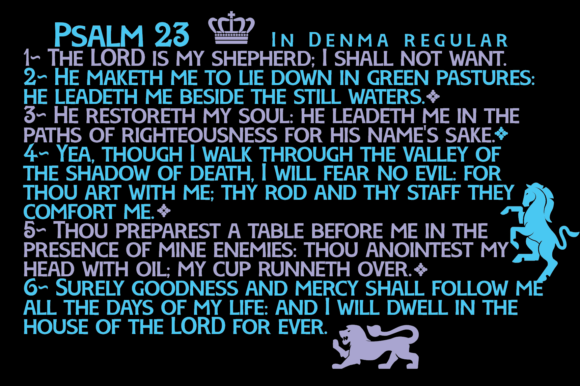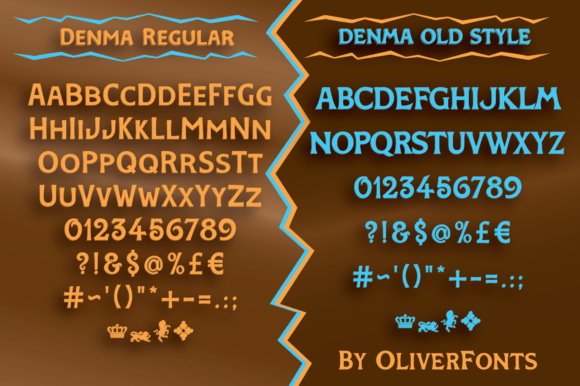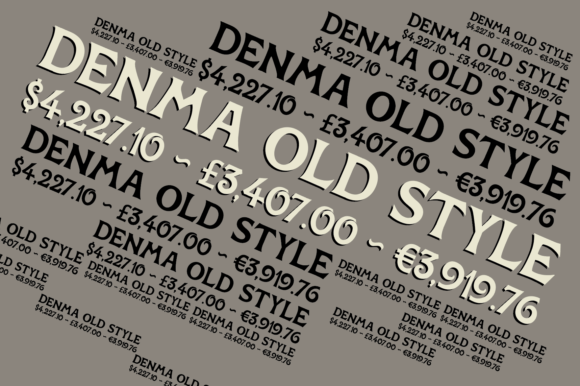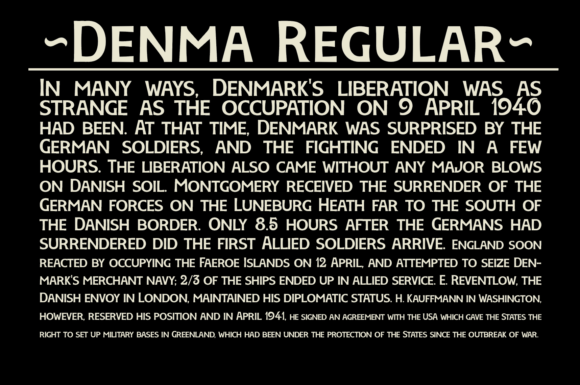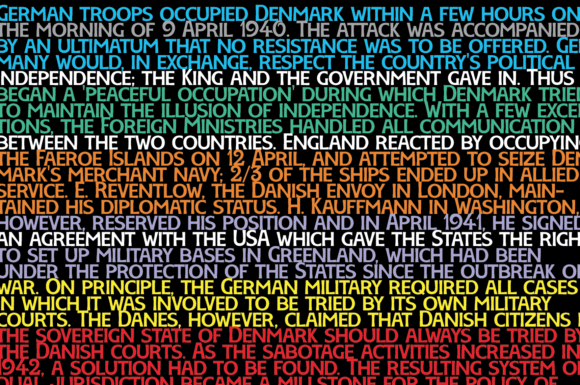
Introduction to Denma Font
As a designer, there’s nothing quite like that moment when an idea finally comes together, and your creative vision takes shape. For many of us, it’s the culmination of hours, days, or even weeks of brainstorming, sketching, and tweaking. But have you ever felt like something was missing – that your project just needed a little extra oomph to take it from good to great? That’s where the Denma Font comes in.
This beautiful, high-quality font is more than just a design resource – it’s a key to unlocking the creative potential of your next project. With its unique blend of elegance and sophistication, the Denma Font is the perfect choice for anyone looking to add a touch of class to their work. And the best part? It’s available for free download, making it a valuable addition to any designer’s toolkit.
Key Features of Denma Font
- Unique, hand-drawn design style that adds a personal touch to any project
- Can be easily scaled and customized to fit various design needs
Honest Review: Denma Font
I recently stumbled upon the Denma Font, and I must say it’s a hidden gem in the design resource world. With its high-quality typography, this font has the potential to elevate any creative project.
- Transparent background: This feature allows designers to easily place the font on any background, giving it a seamless look.
- Clean and modern design: The Denma Font’s clean lines and modern aesthetic make it perfect for contemporary design projects.
- Limited font styles: The Denma Font only comes in a few font styles, which may not be enough for designers who need a wide range of options.
- Not ideal for complex text: Due to its modern design, the Denma Font may not be the best choice for complex or lengthy text.
Overall, the Denma Font is a solid addition to any designer’s toolkit. While it may have some limitations, its high-quality typography and free download make it a valuable resource for creative projects. I’d definitely recommend giving it a try!
Tips for Getting the Most Out of Denma Font
Use Denma Font to create eye-catching headings and titles. Experiment with different font sizes and colors to add visual interest to your design. You can also use Denma Font in combination with other fonts to create a unique and creative look.
Denma Font is perfect for designing logos, brochures, and other marketing materials. It’s also great for creating social media graphics and other online content. With its high-quality design and transparent background, Denma Font is a valuable resource for any creative project.